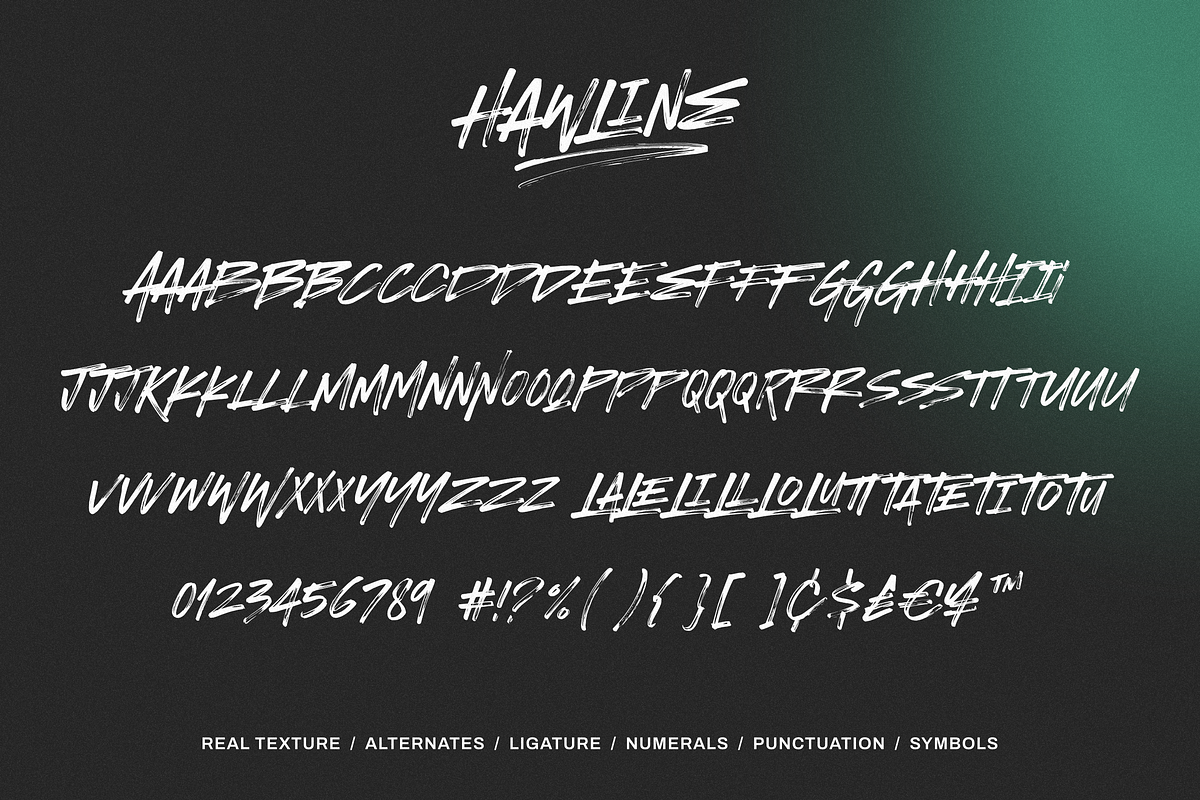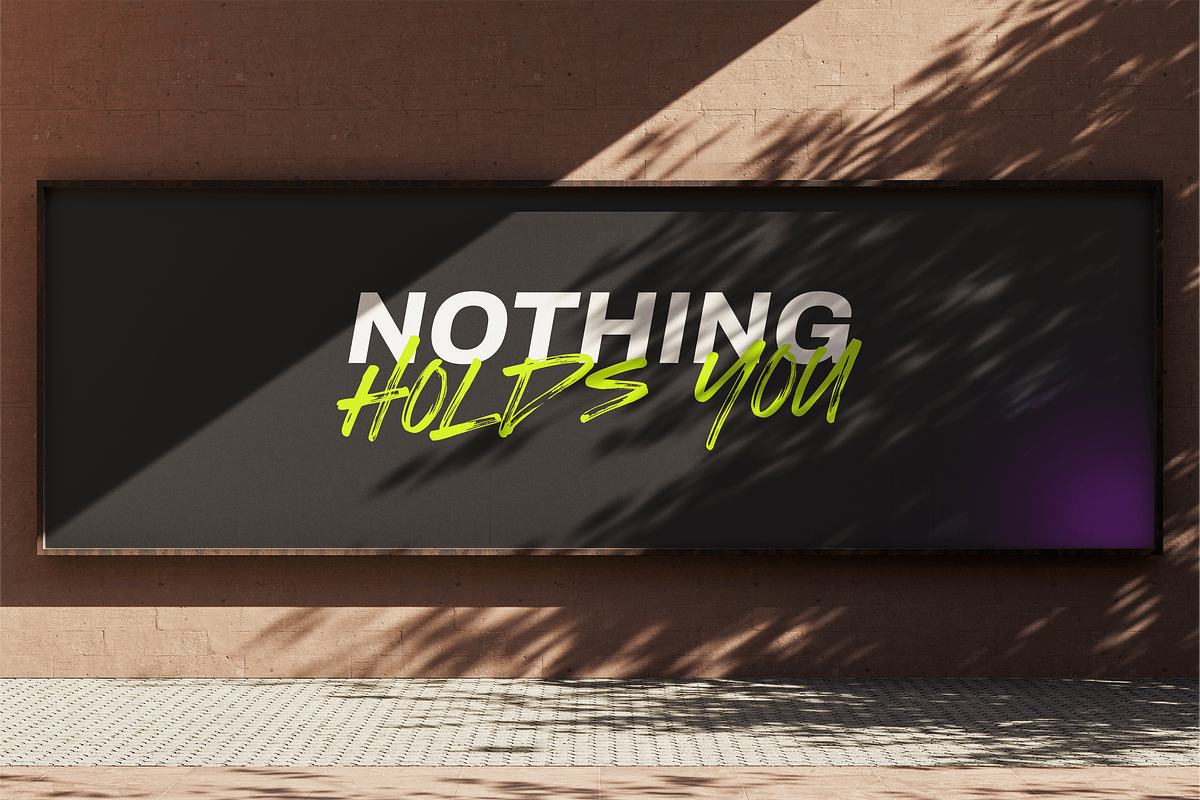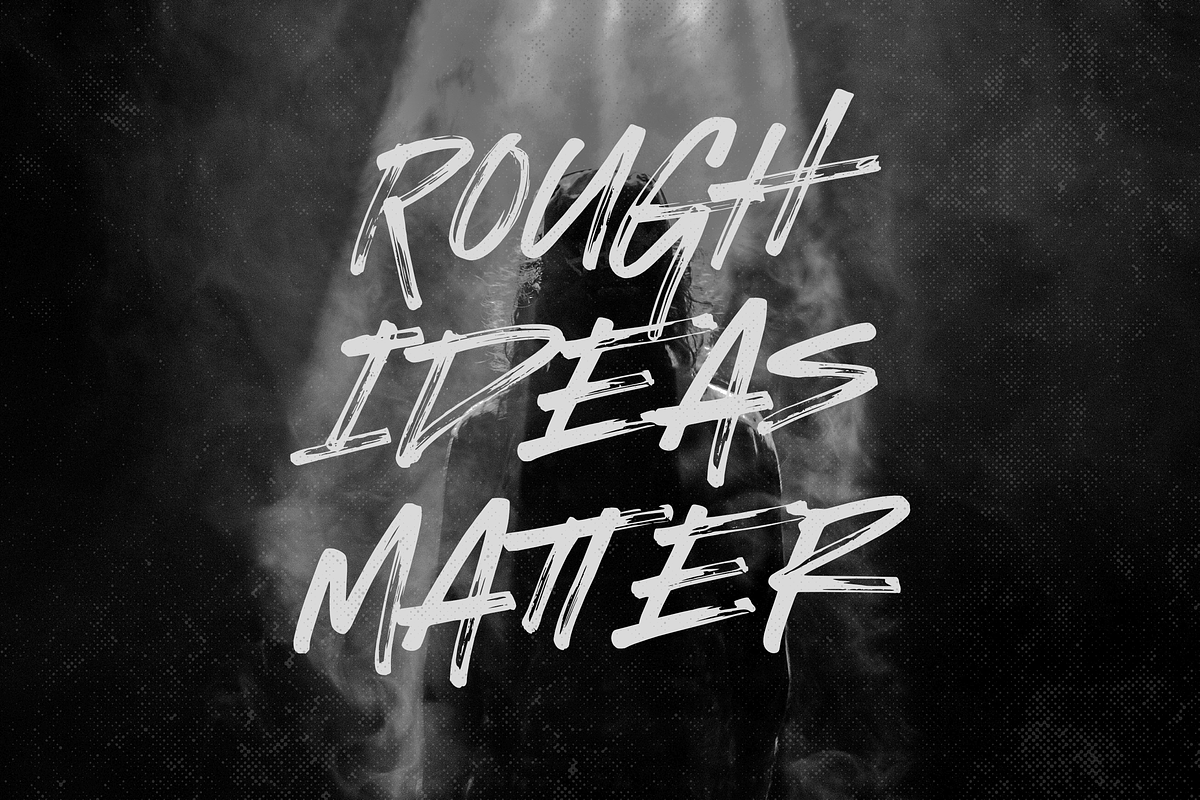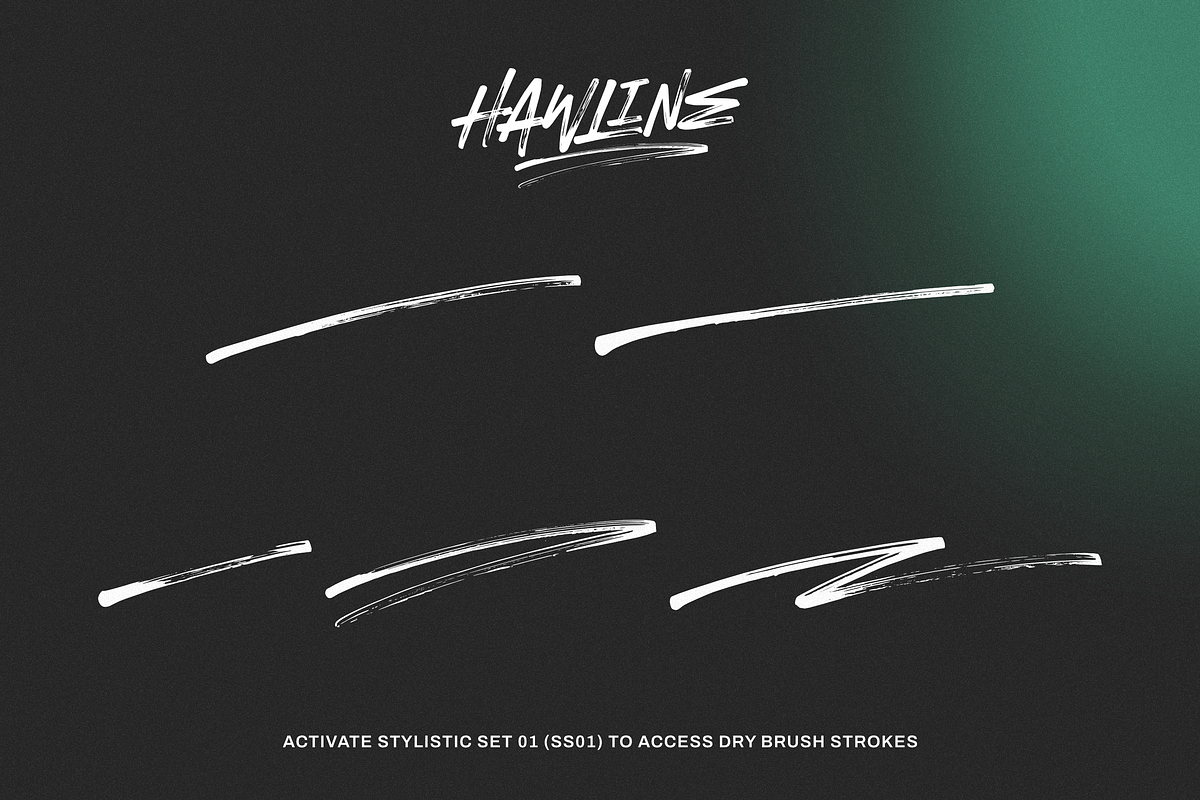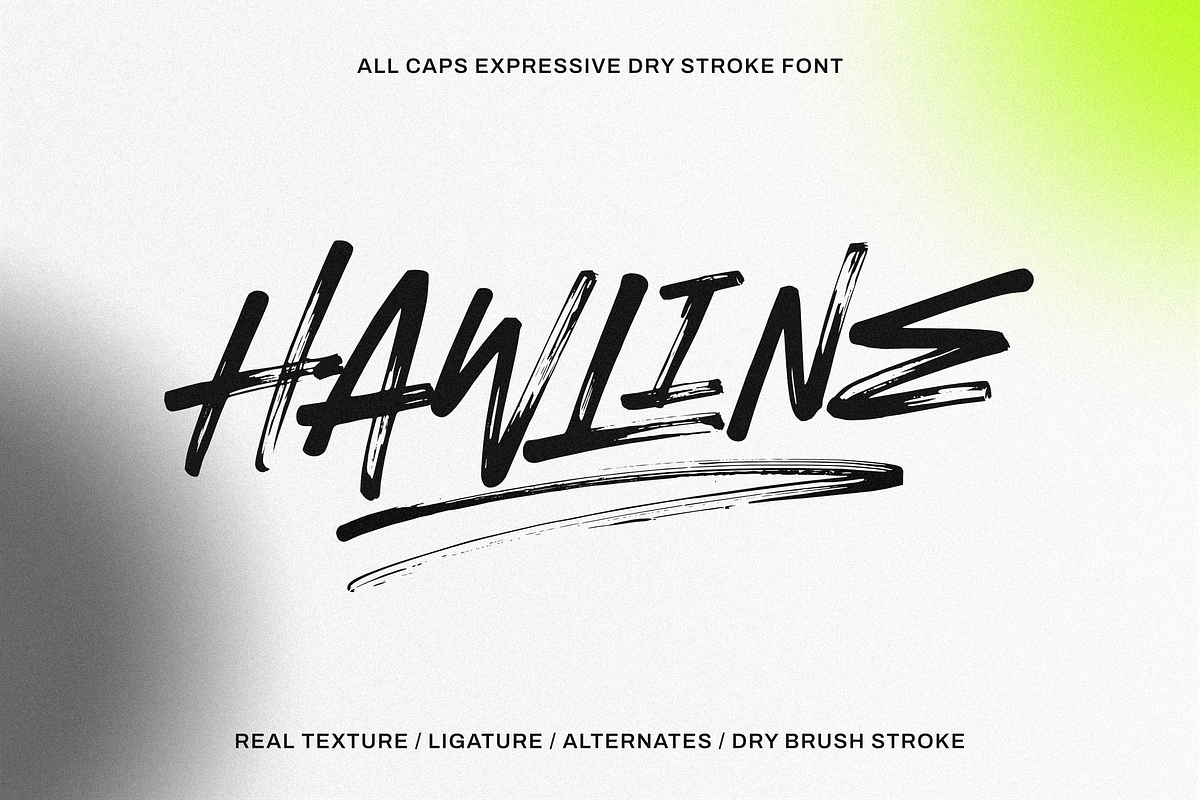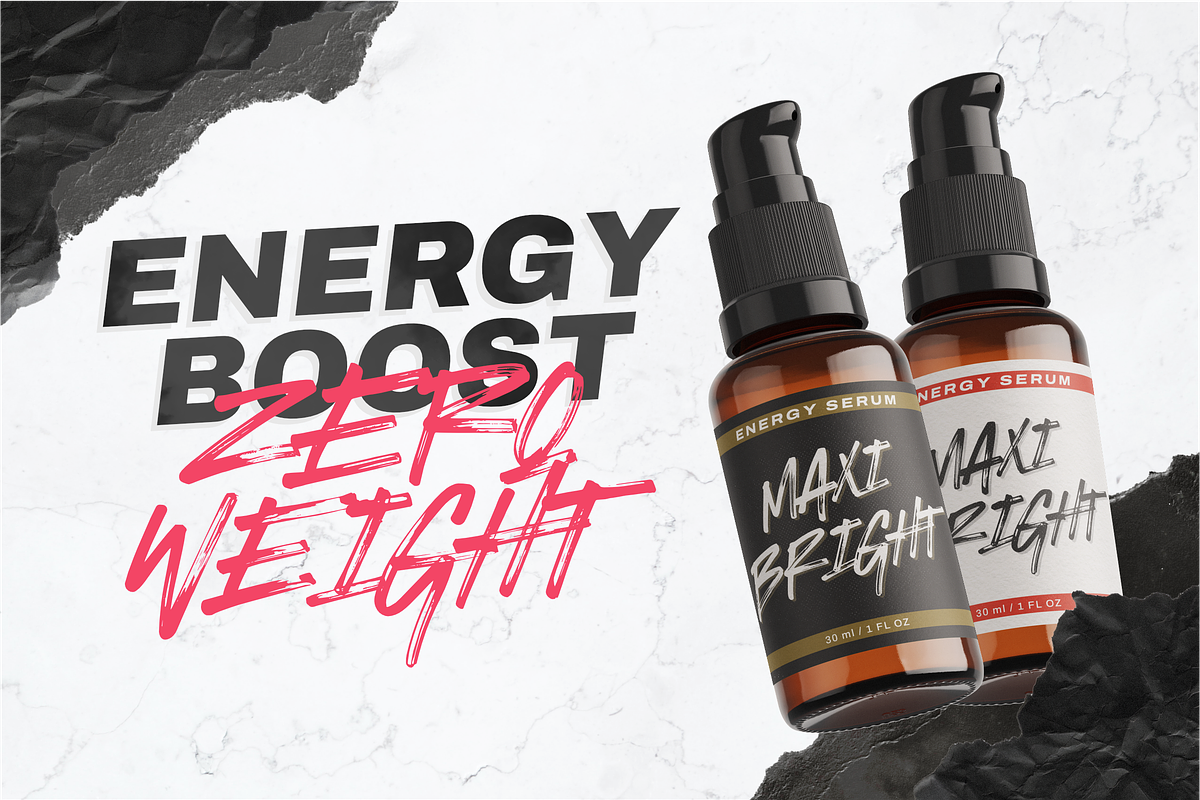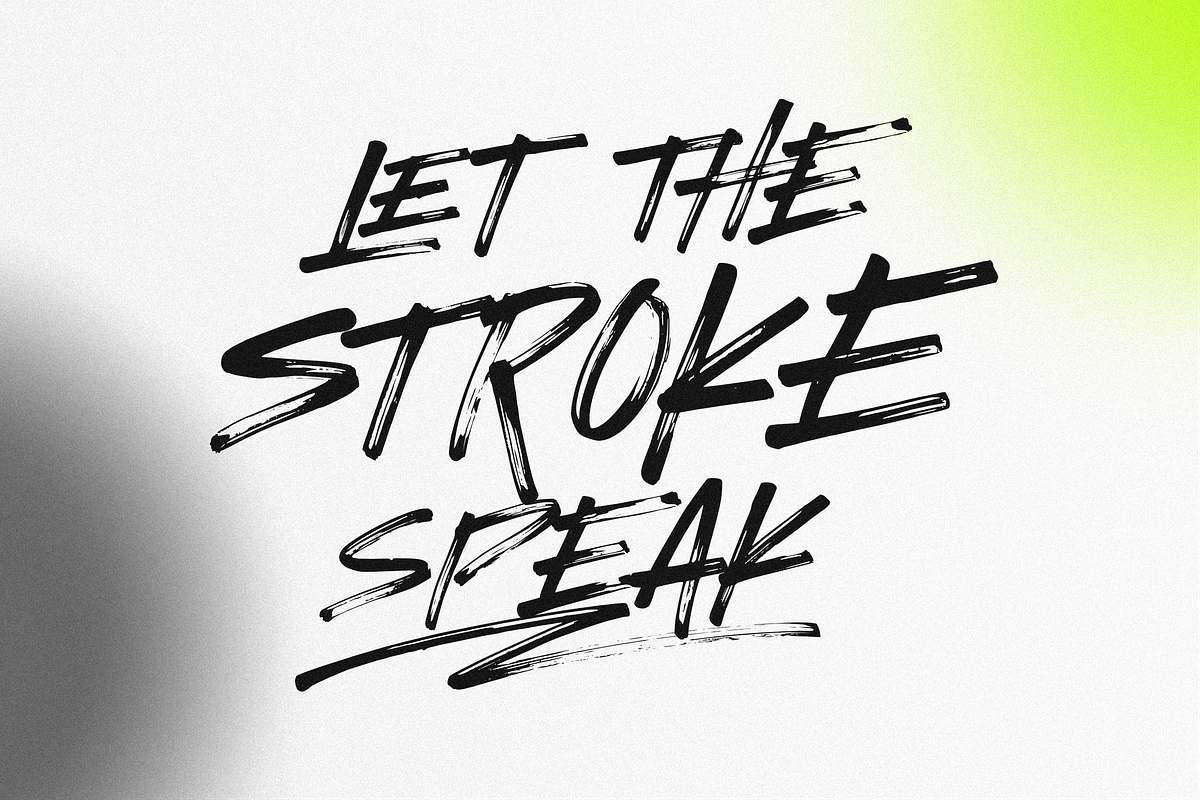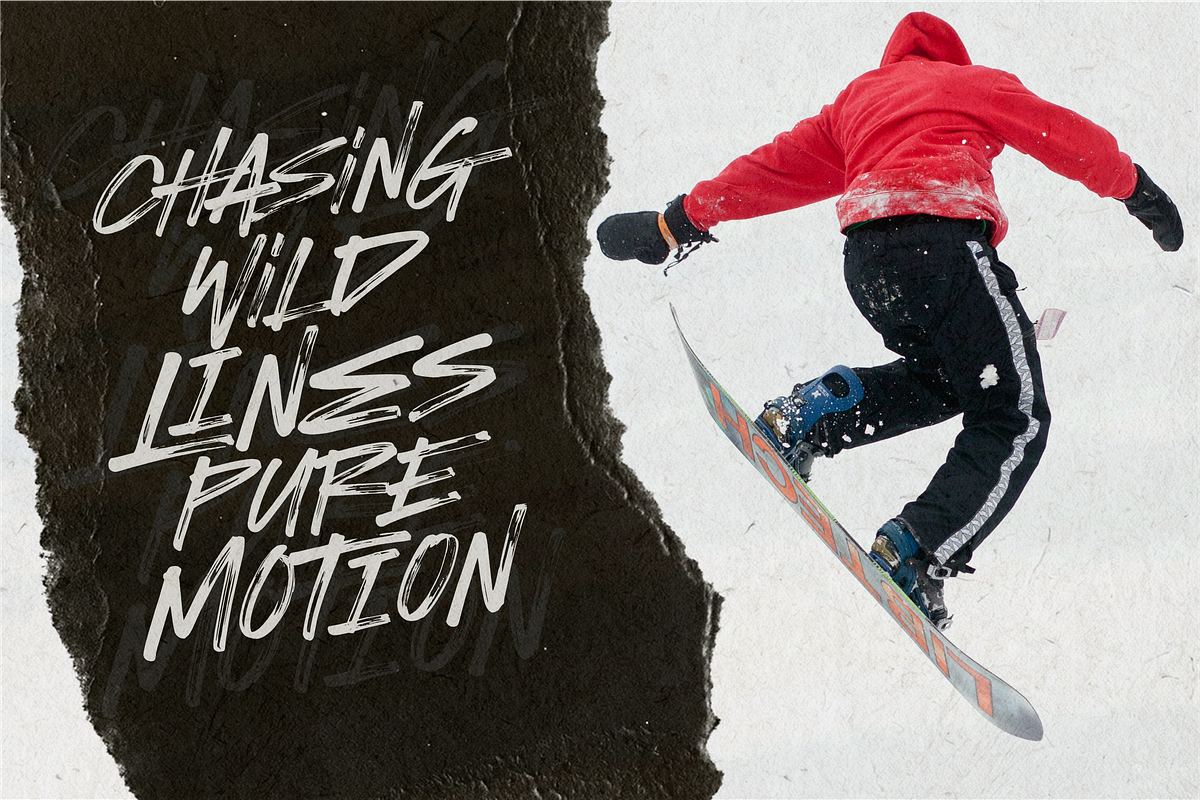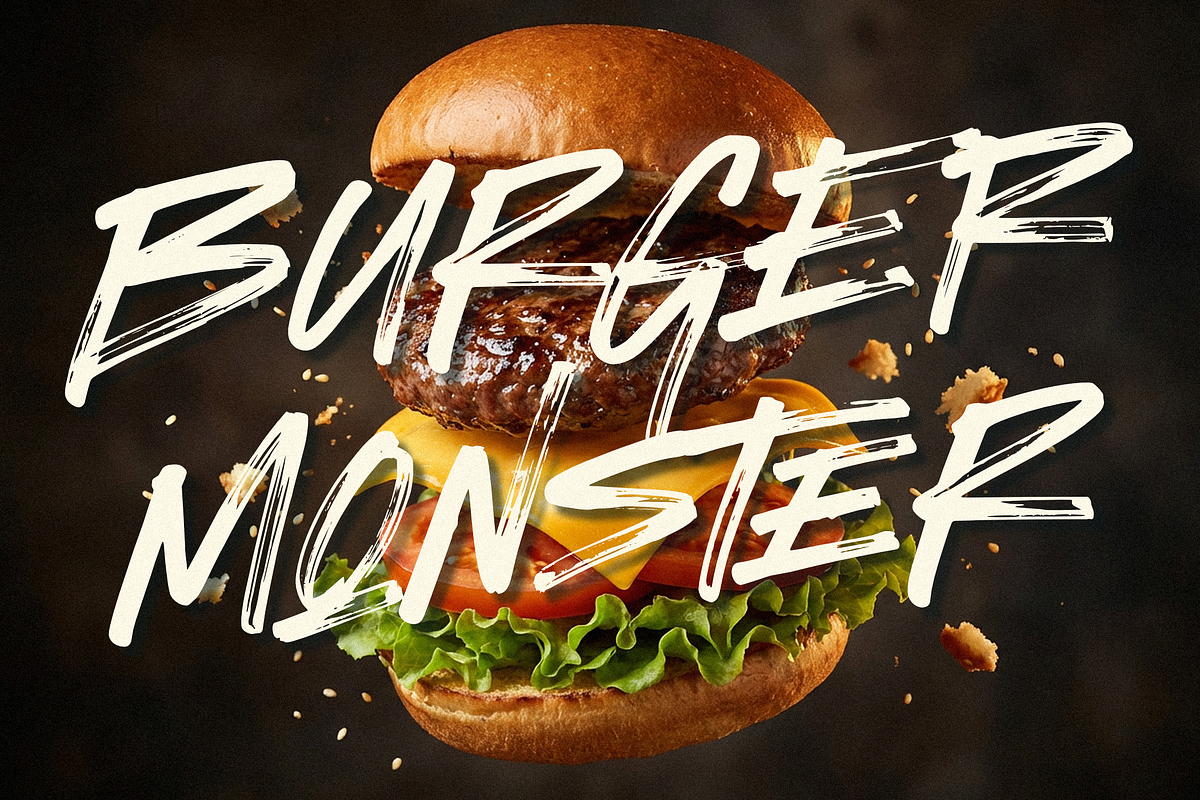
Hawline Inked – Expressive Font
Hawline Inked
Hawline Inked is a hand-crafted display typeface made using a brush pen dipped in ink, capturing the raw motion and imperfect texture of real, hand-drawn strokes. Its expressive, ink-rich marks create an organic and spontaneous feel, giving each letter a strong sense of movement and personality.
Designed with creative flexibility in mind, Hawline Inked supports extended Latin multilingual characters and includes ligatures and stylistic alternates for natural variation. The font also features decorative brush stroke ornaments, accessible through Stylistic Set 01 (ss01), allowing designers to add expressive accents and visual emphasis to their compositions.
Well suited for logos, posters, branding, packaging, apparel, and editorial headlines, Hawline Inked performs best at larger sizes, where its handcrafted texture and ink details can truly stand out.